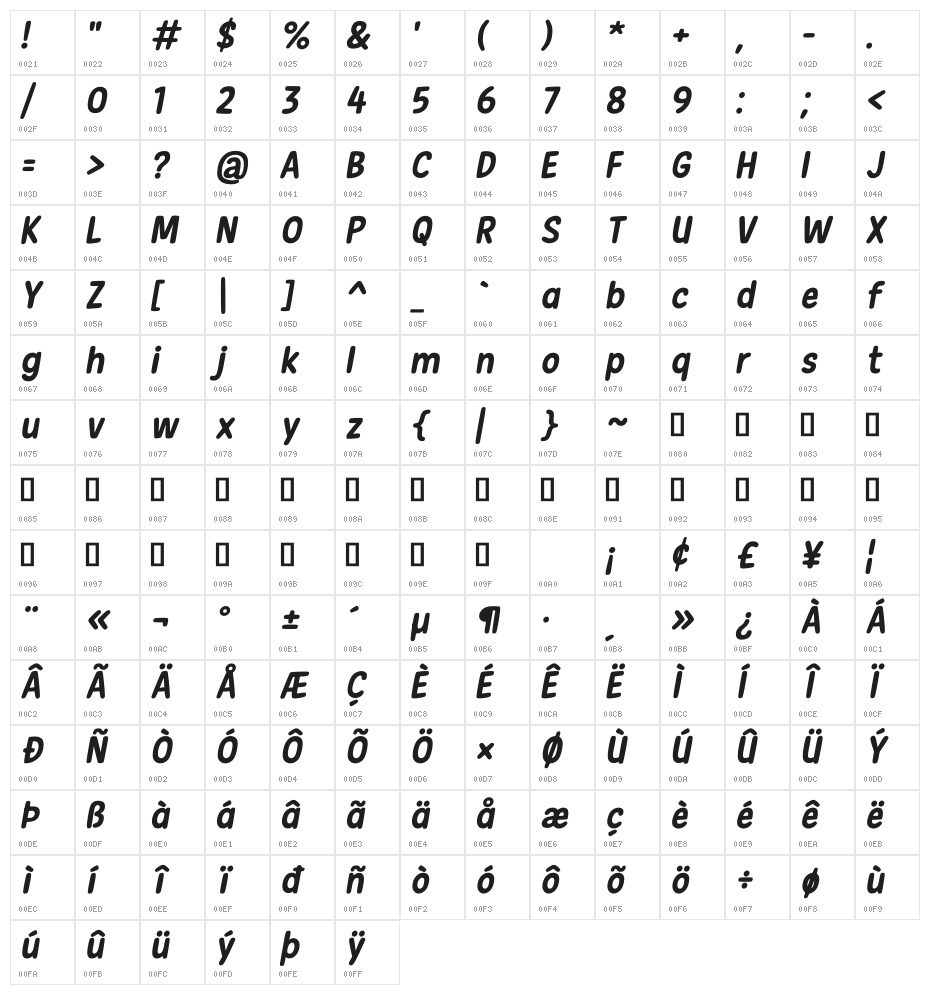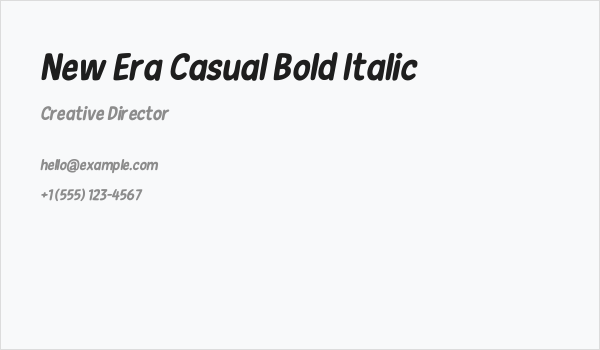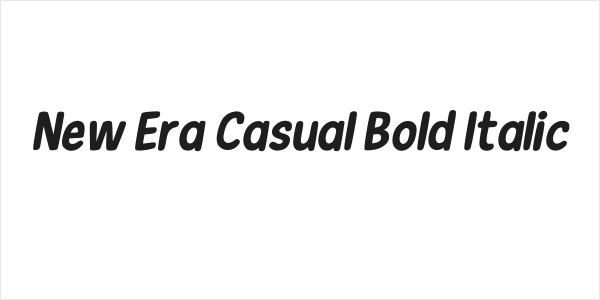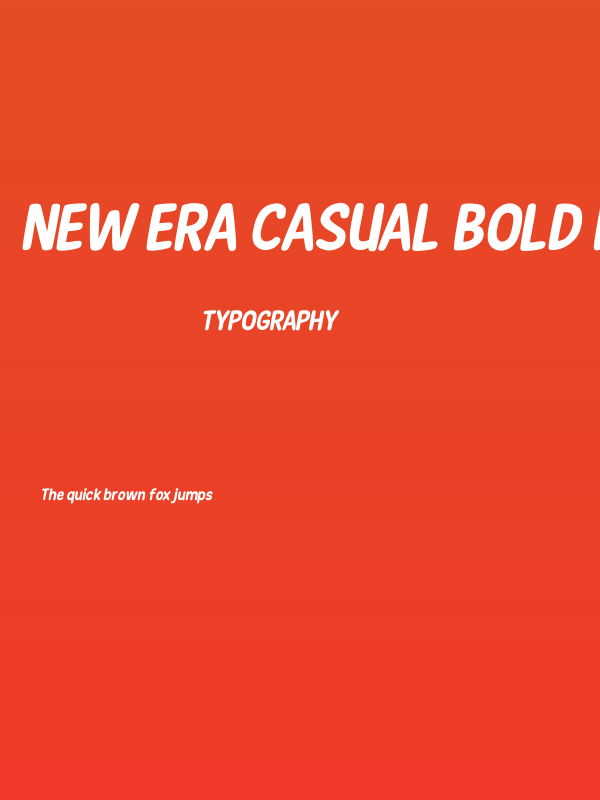
New Era Casual Bold Italic Font
New Era Casual Bold Italic Description
This font features a bold and italicized style, characterized by its smooth, rounded edges and a casual, friendly appearance. The letters are slightly slanted, giving a dynamic and energetic feel. The bold weight ensures strong visibility, making it suitable for attention-grabbing headlines. The overall design is modern and playful, with a touch of informality that makes it approachable. The numbers and special characters maintain the same bold and italicized style, ensuring consistency across all elements. The font's rounded forms and generous curves contribute to its legibility and appeal.
| Proposed Projects | Ideal for branding, advertising, posters, and any project requiring a friendly and approachable typeface. |